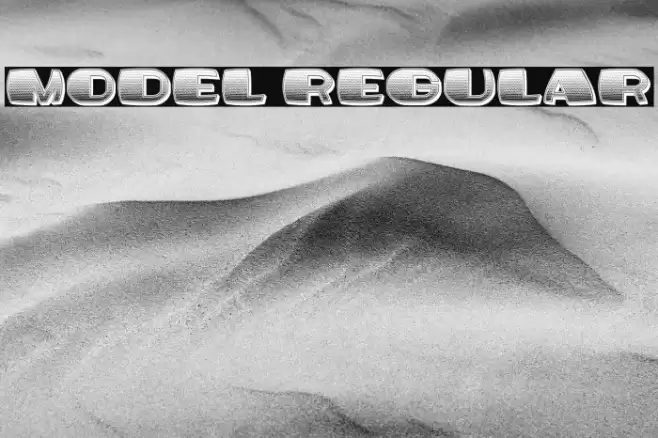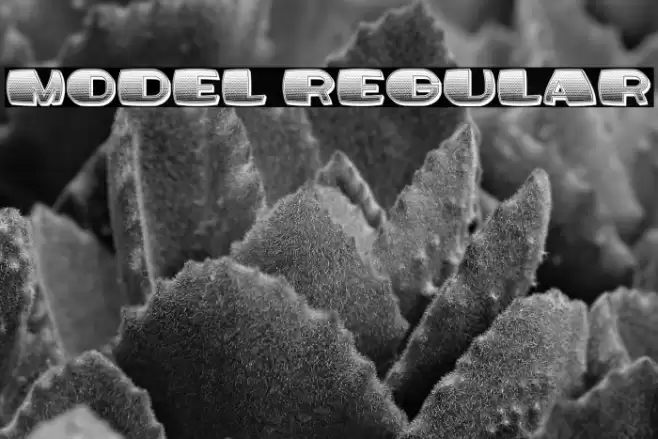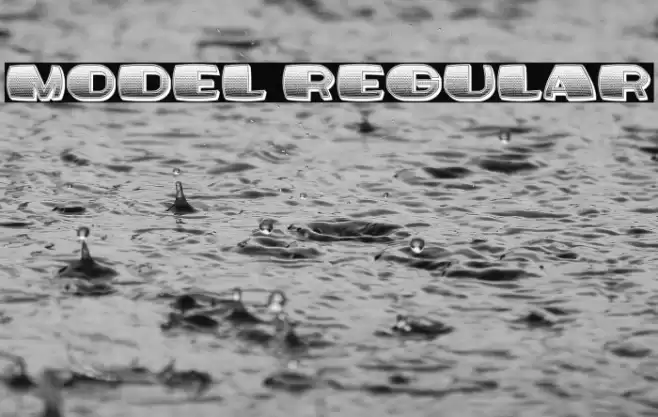
Model Regular Font
Model Regular Description
This font features a bold, three-dimensional appearance with a textured pattern that gives it a metallic and industrial feel. Each character is designed with a shadow effect, enhancing the depth and making the letters stand out prominently. The uppercase letters are uniform in height, while the lowercase letters maintain a consistent style, ensuring readability. The numbers and special characters follow the same design principles, providing a cohesive look across all glyphs. This font is ideal for projects that require a strong, impactful visual presence.
A bold, textured font with a three-dimensional, industrial look from Uncategorized fonts.
- Proposed Projects: Ideal for branding, posters, video game titles, and any design needing a strong, industrial aesthetic.
- Overall Style: Modern, Industrial